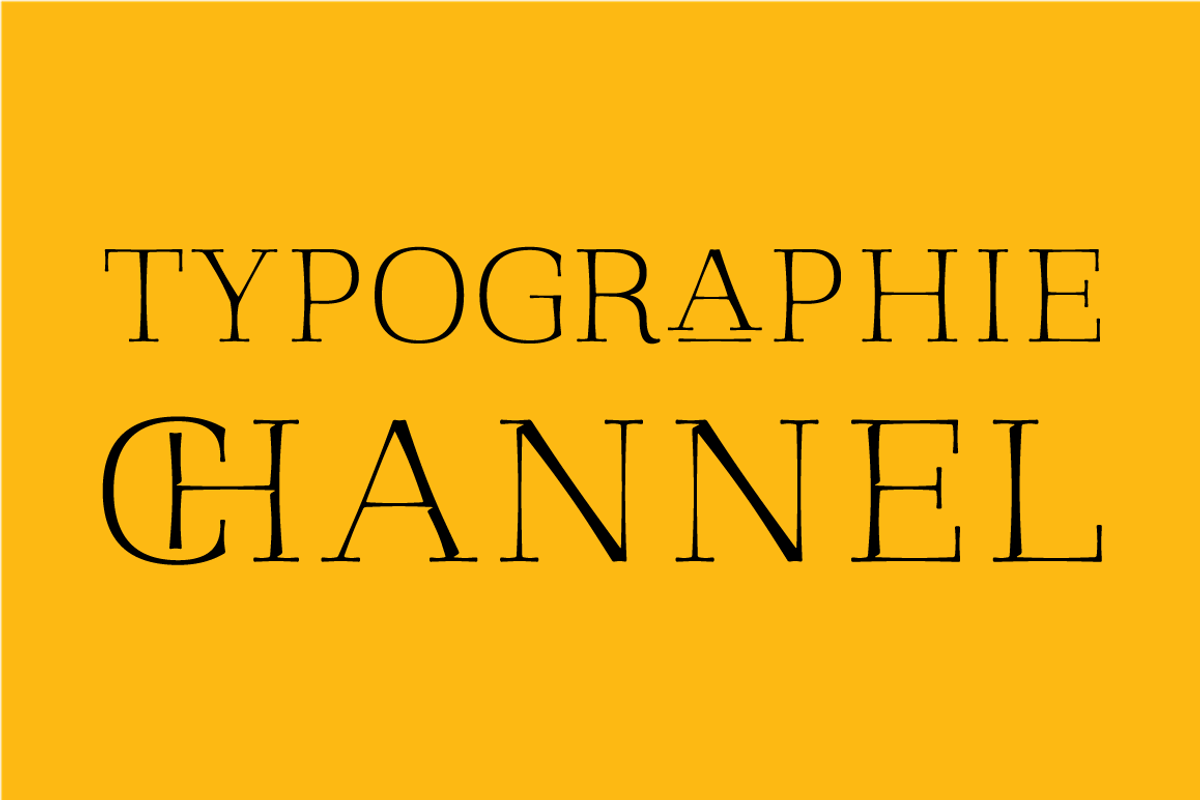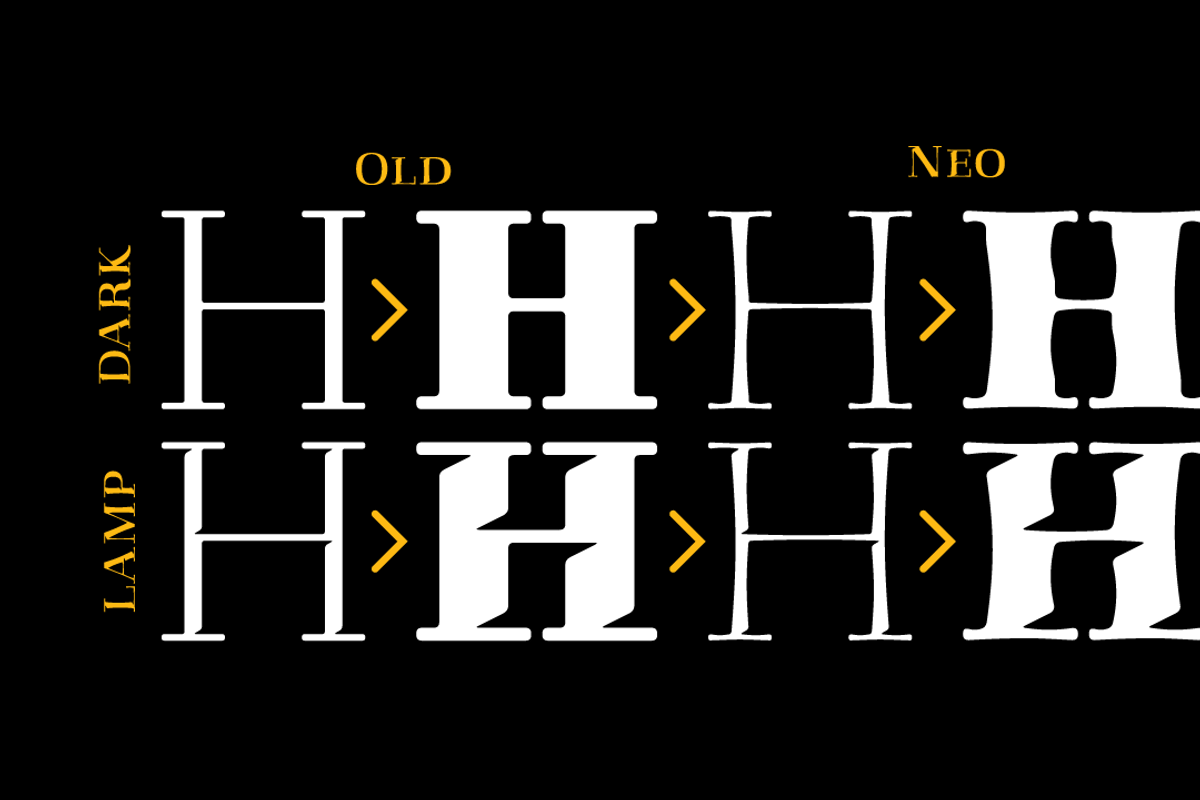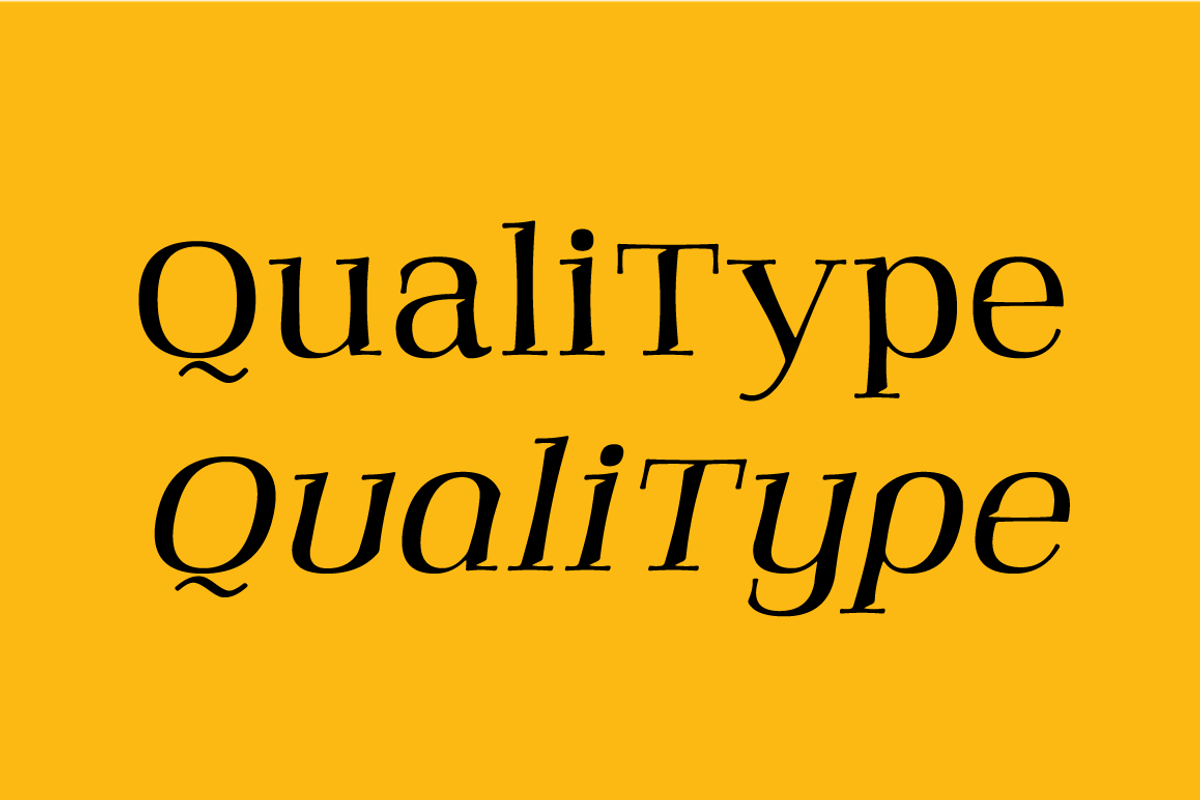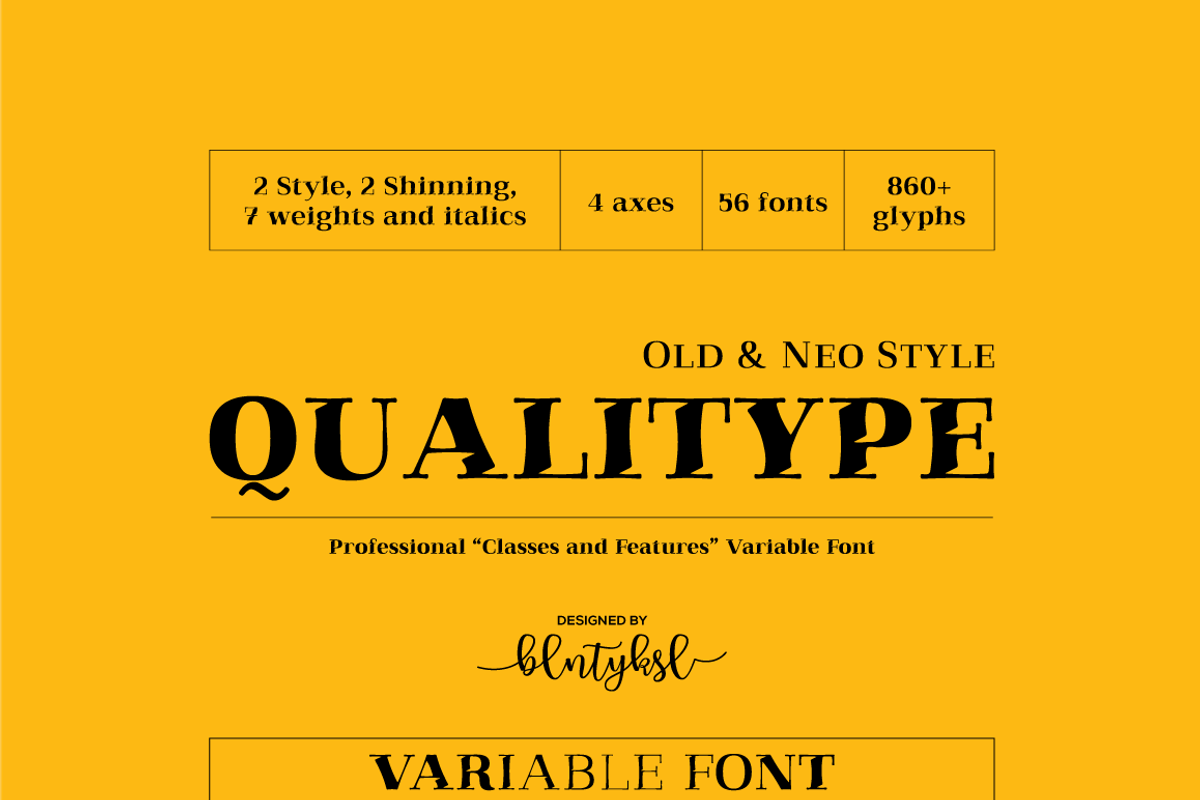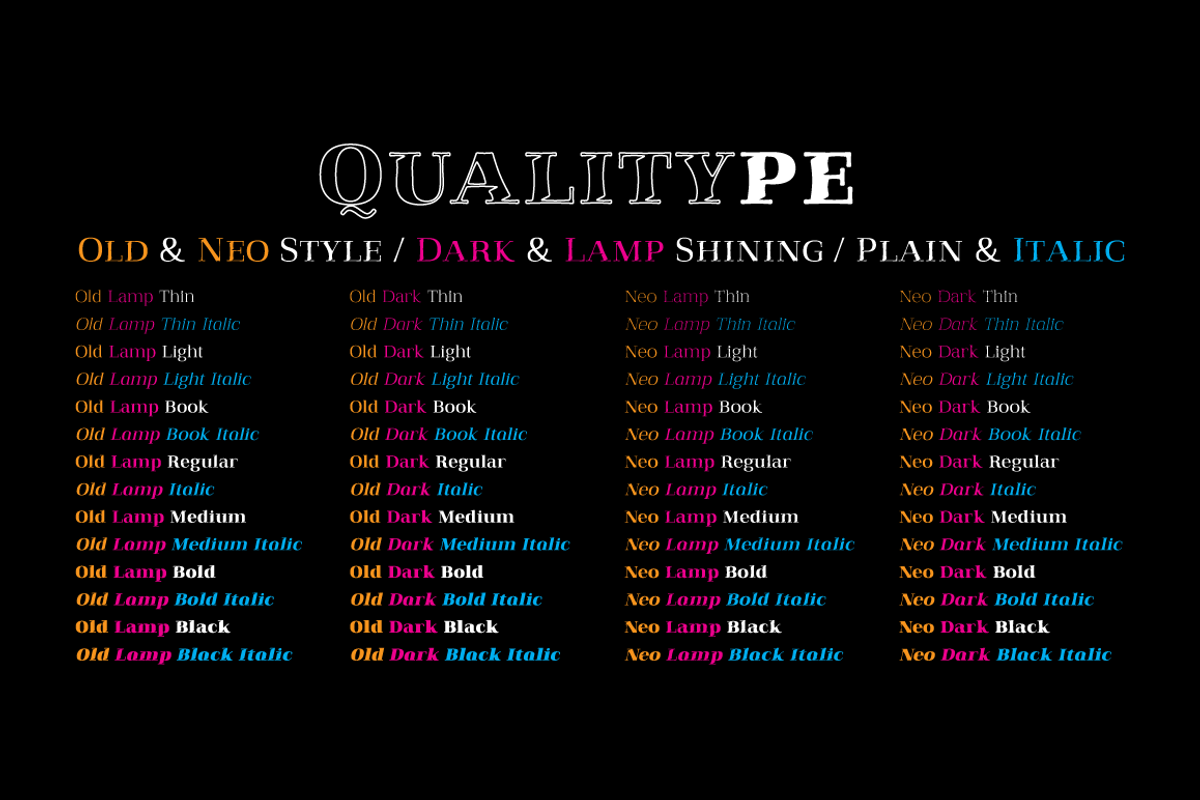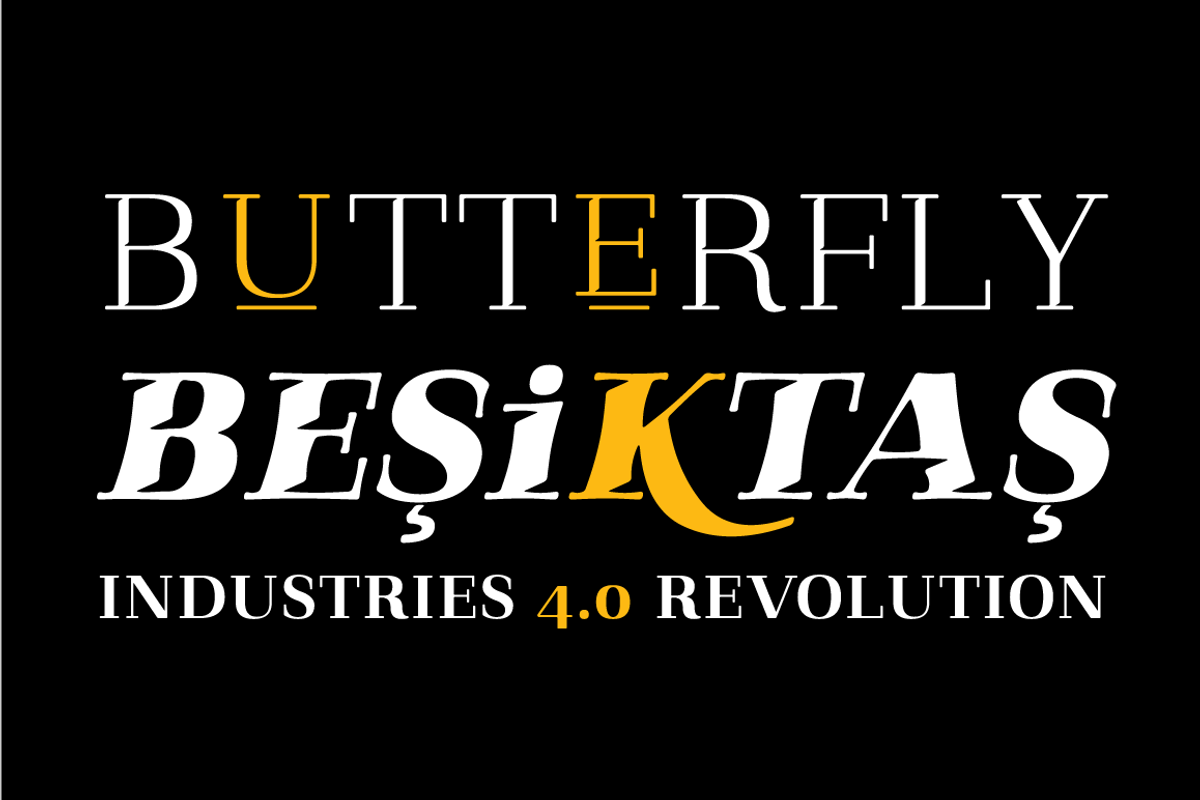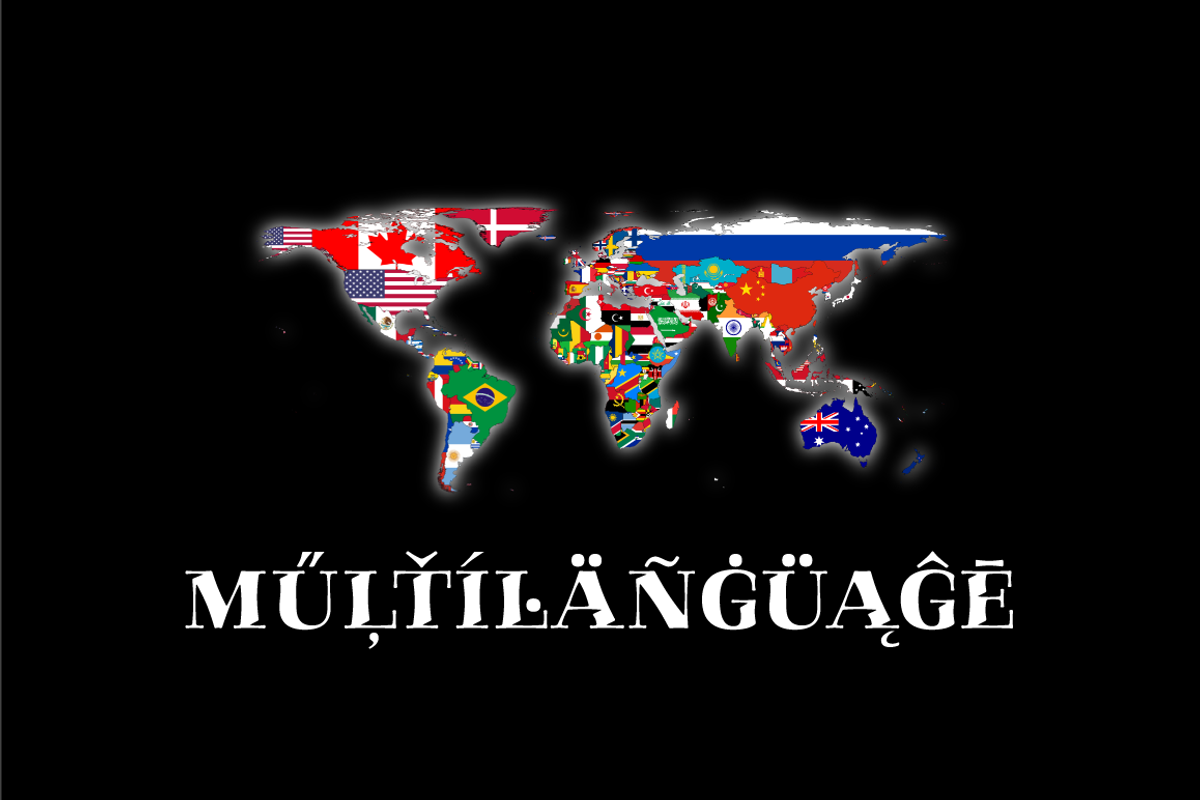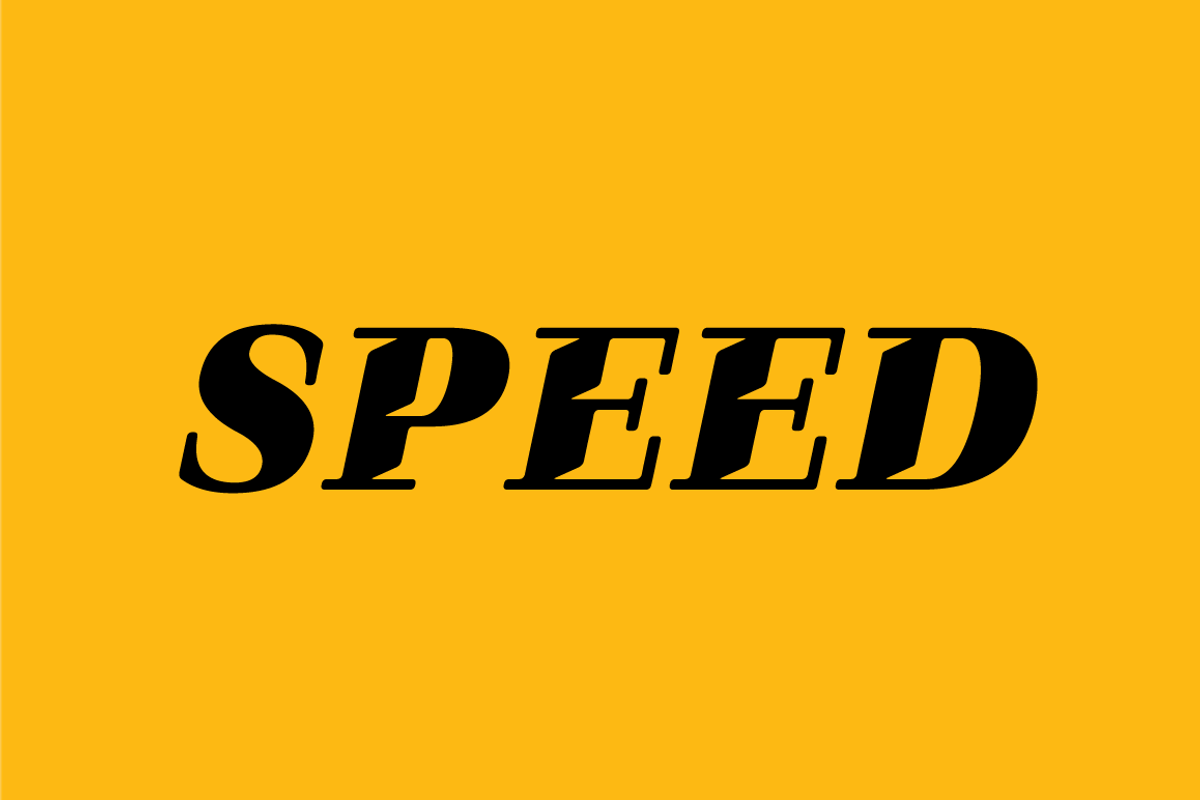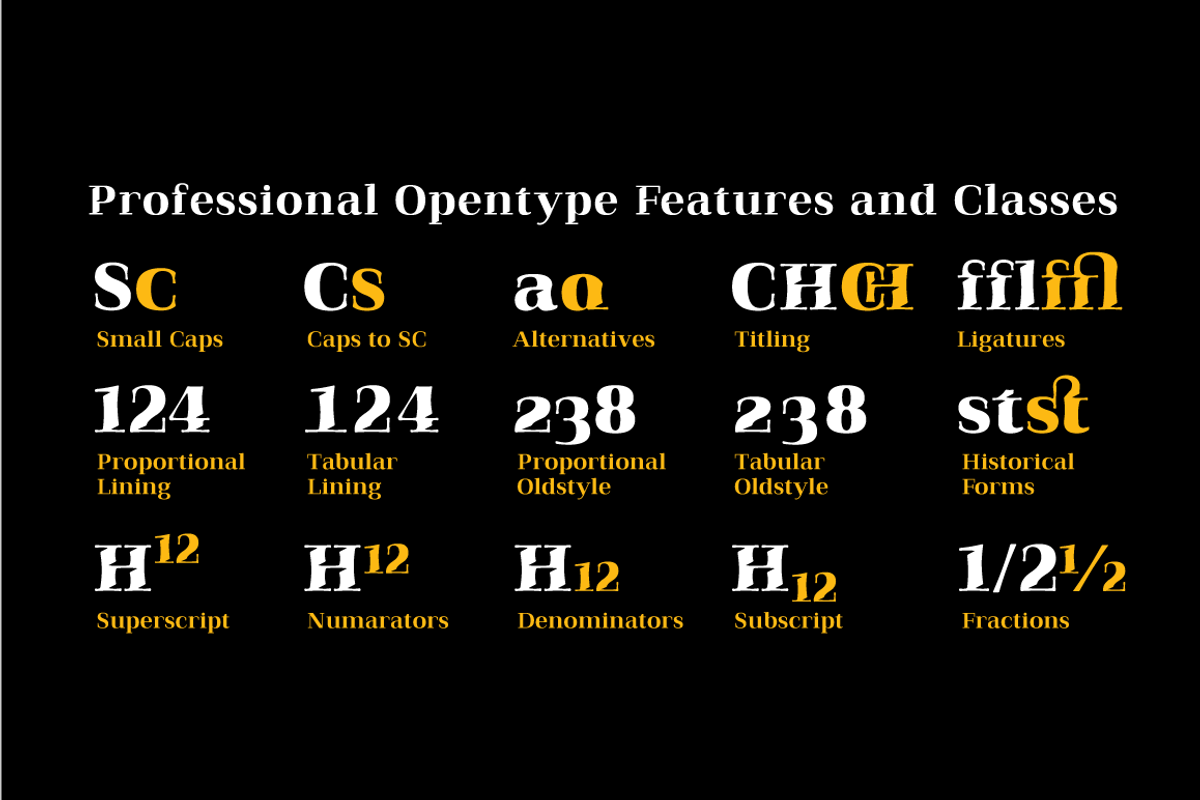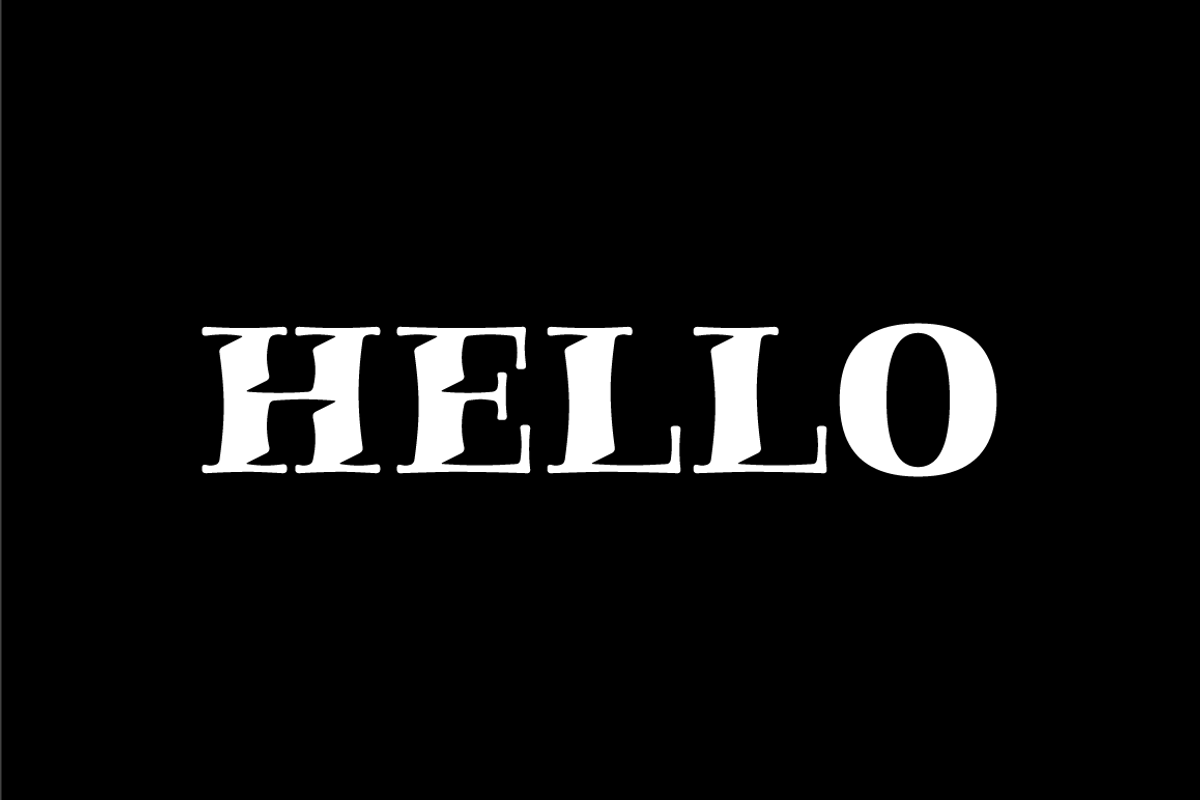
Qualitype Variable Family
QUALITYPE VARIABLE FONT
"Qualitype" font extends its use by providing weights from "Fine" to "Black". Natural curves, ridges, and curved bodies grow in character as the font gains weight.
"Qualitype" is an exciting serif font with contemporary twists.
It has a distinctive sound that preserves the simplicity and elegance of classic "serif" fonts with a fresh, stylish rework. Her personality is bold and fills the space without shouting, she looks elegant and confident. The low X-height provides a great amount of visibility at all weights and is optically corrected for better readability.
In the process of working on "Qualitype" we wanted to expand the functionality of the typeface a bit more, so after a few tries two different fonts were born: Old, Neo and italic versions.
"Qualitype" is perfect for use in magazines, in the fashion industry, in the branding of premium goods and services. "Qualitype" is quite versatile and suitable for use both in headings and in text arrays. In addition, we have done manual hinting in the typeface, and now it can be used with a clear conscience in the web and applications.
“Quality” typeface consists of 56 styles: 2 style, 2 Shining, 7 weights and italics. Each typeface style consists of 860+ glyphs (except for the decoratives). “Qualitype” supports over 80+ languages.
OPENTYPE FEATURES aalt, dnom, onum, pnum, tnum, lnum, numr, frac, zero, sing, sups, subs, case, c2sc, smack, salt, hist, titl, holing, dig, liga, ss01, ss02, ss03, ss04, ss05, ss06, ss07, ss08, ss09, ss10, kern
FEATURE SUMMARY:
4 Axes:
2 Style: Old and Neo.
7 weights: Thin, Light, Book, Regular, Medium, Bold and Black.
2 Shining: Dark and Lamp.
Matching italics (12º) for all weights and style .
Matching small caps for all weights and widths.
Lining and old style figures (proportional and tabular).
Alternate characters (a, d, g, m, n, p, q, r, u, y).
Unlimeted fractions.
24 Dingbats.
Extended language support.
Extended currency support.